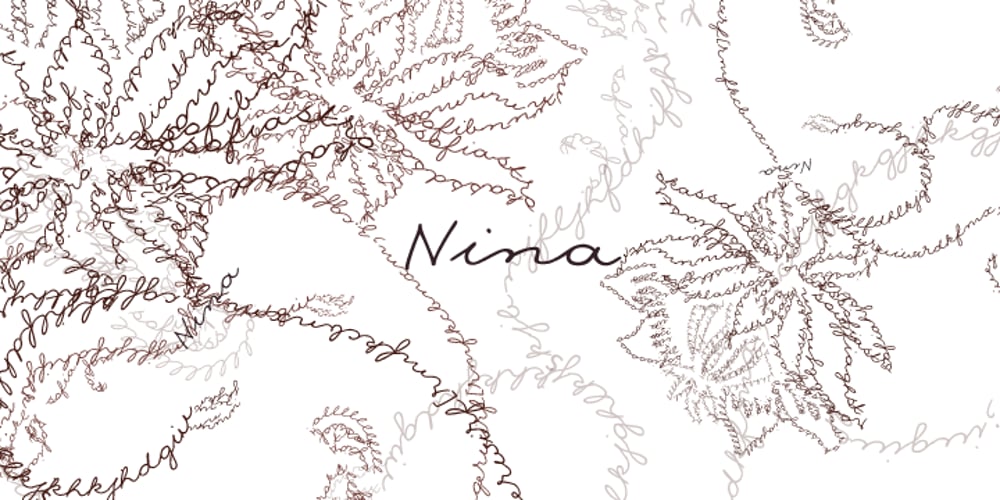
Nina Font Family was designed by Tagir Safayev, Gennady Fridman and published by ParaType. Nina contains 3 styles and family package options. Based on informal pen handwriting. A set of Western characters and two bold weights were added in 2011 by Gennady Fridman. For use in advertising and display typography.